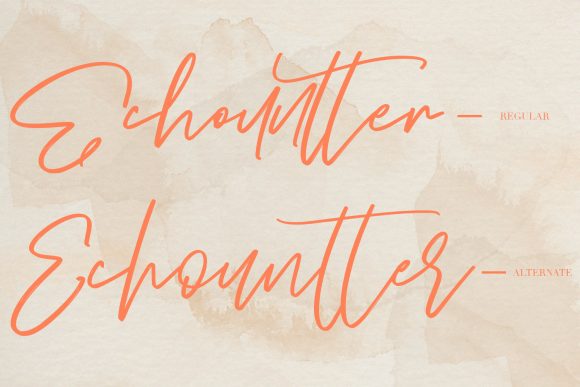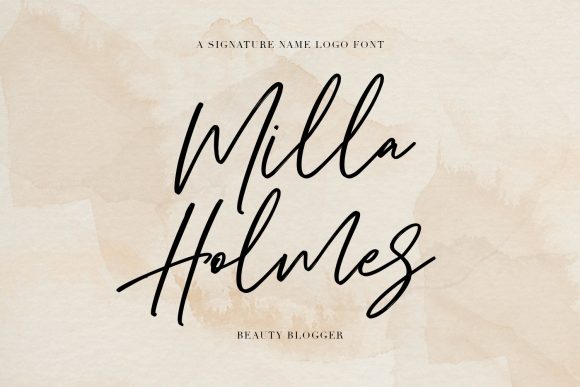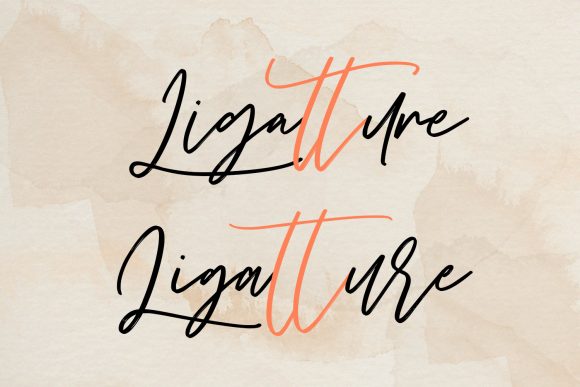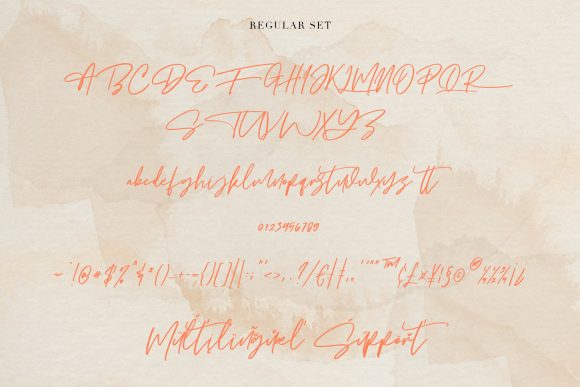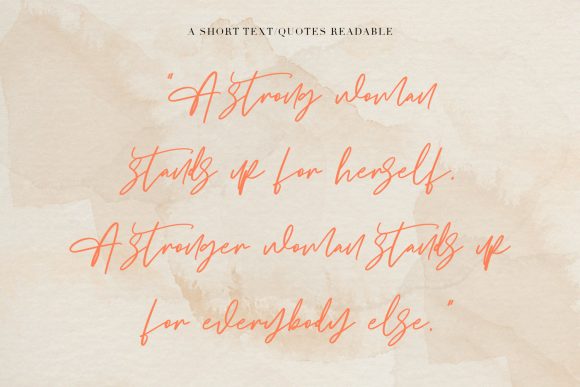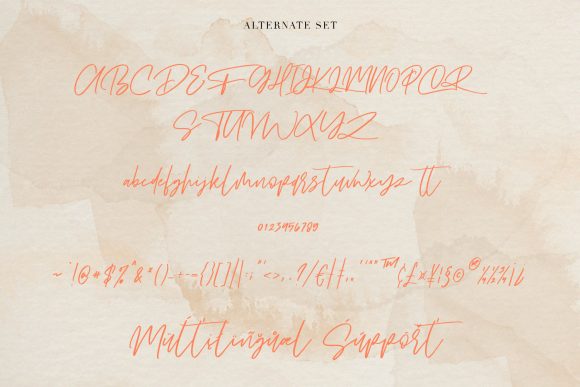
Introduction to Echountter Font
Echountter is a lovely and timeless handwritten font.
Key Features of Echountter Font
Why Choose Echountter Font?
Echountter Font offers exceptional quality and versatility, making it a valuable addition to your design toolkit. Whether you’re creating for personal projects or commercial use, Echountter Font delivers professional results.